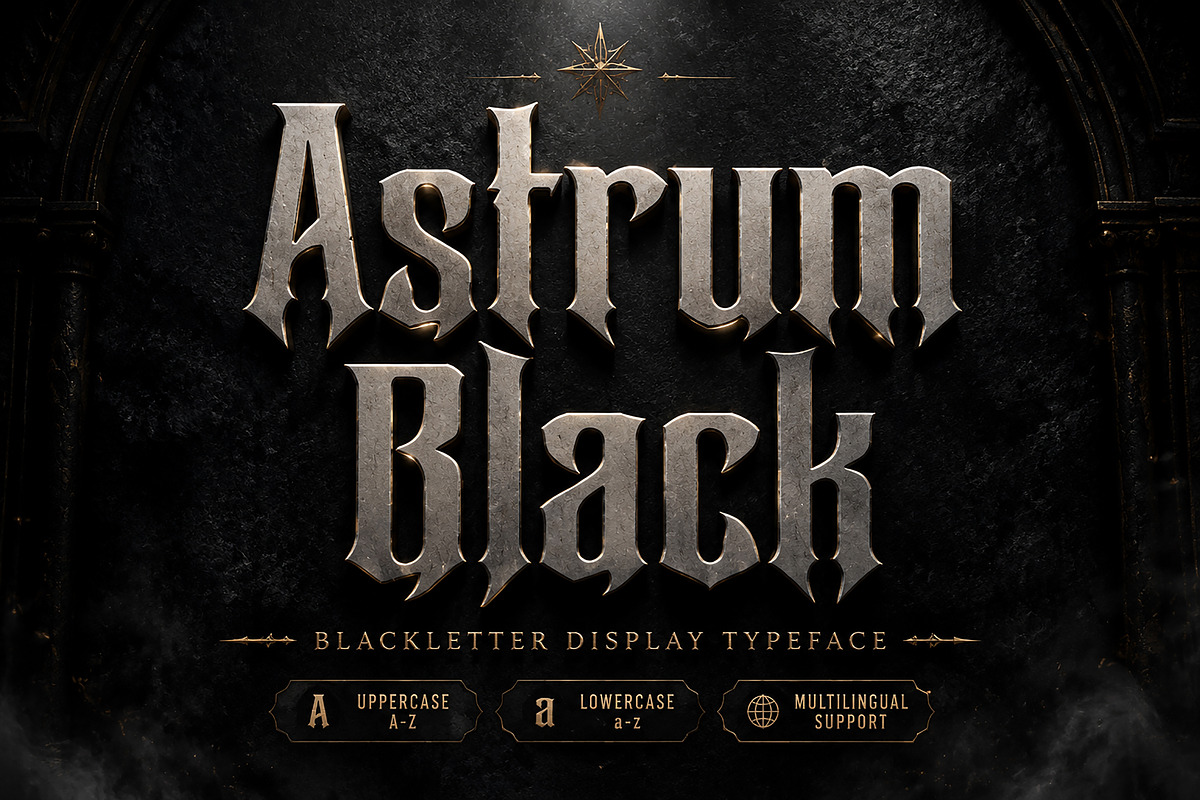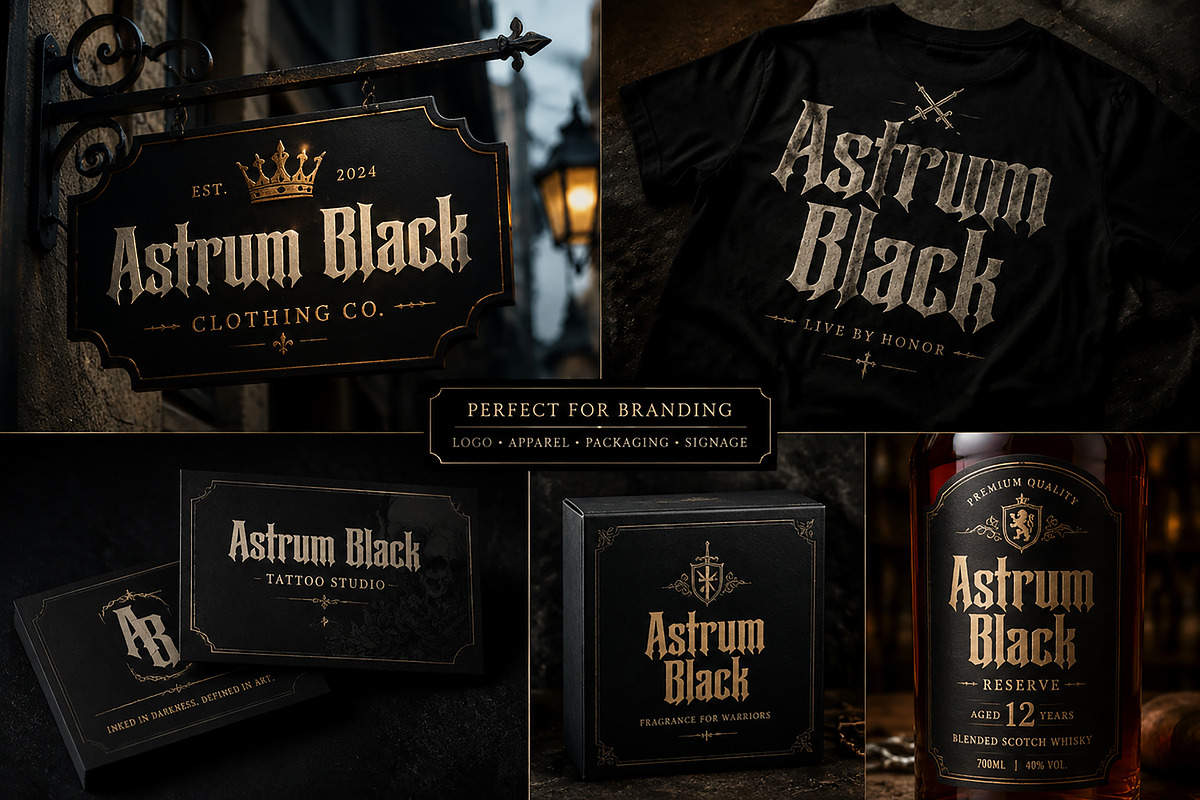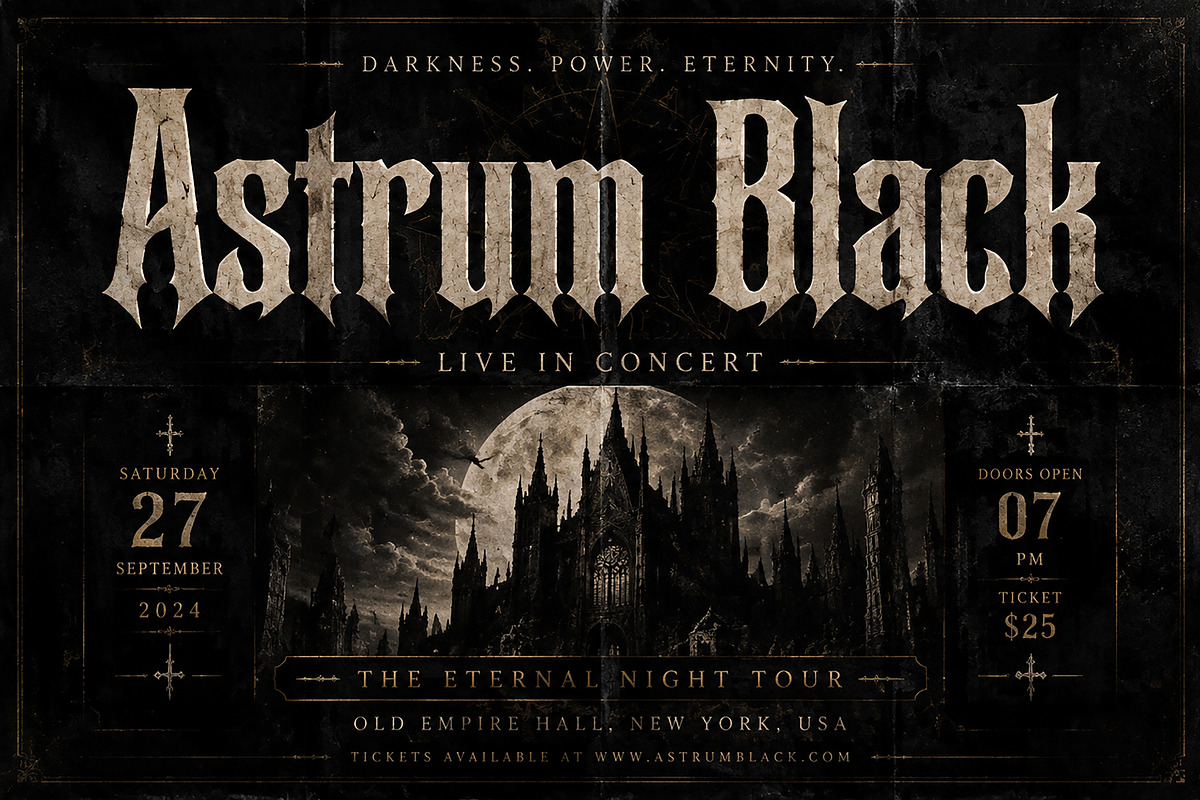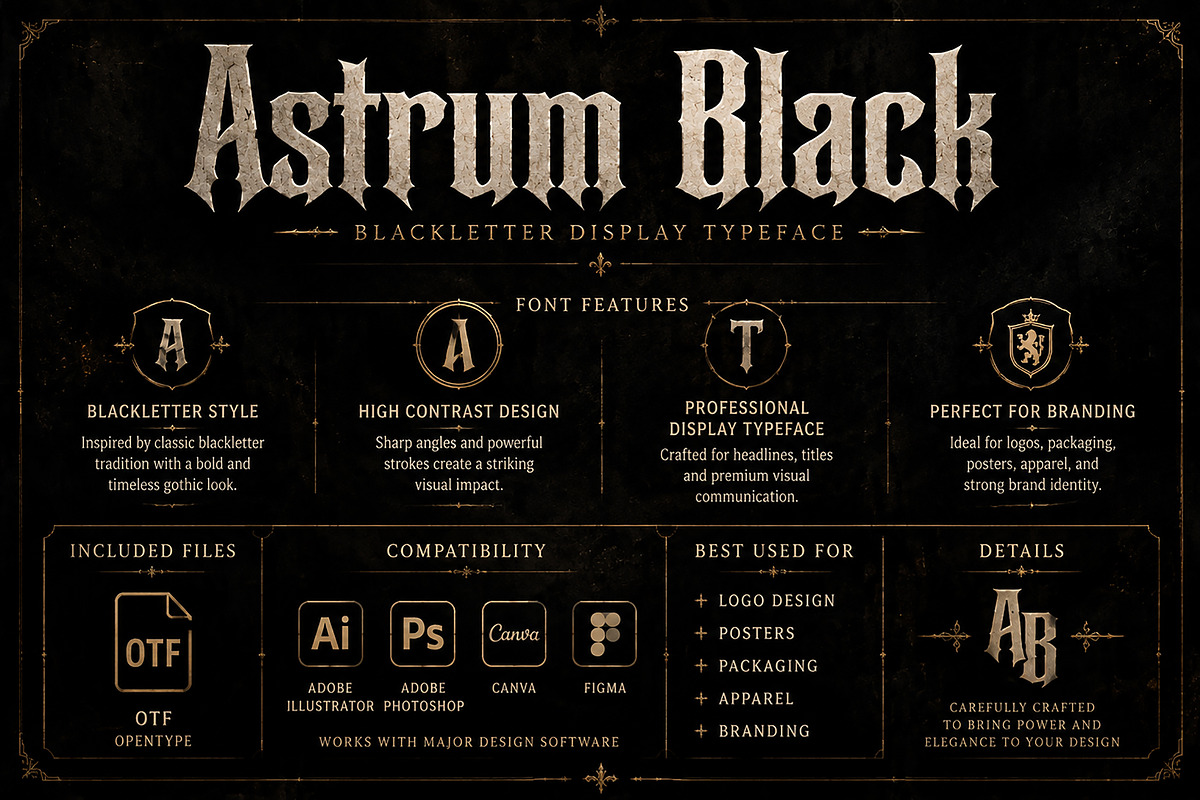
Astrum Black – Gothic Blackletter
Astrum Black – Gothic Blackletter Display Typeface
Astrum Black is a powerful blackletter display typeface inspired by medieval aesthetics, gothic architecture, and classic historical typography. Designed with sharp edges, bold strokes, and a strong visual presence, this font brings a premium and dramatic feel to any creative project.
Perfect for luxury branding, logo design, apparel graphics, posters, tattoo designs, music artwork, packaging, and vintage-inspired designs. Astrum Black is crafted for designers who want a bold statement font with a timeless gothic character.
Whether you are creating a powerful brand identity, an epic event poster, a clothing label, or a dark-themed visual project, Astrum Black adds a distinctive and memorable style.
✓ Gothic Blackletter Display Style
✓ Strong Medieval Inspired Letterforms
✓ High Contrast Bold Design
✓ Professional Display Typeface
✓ Perfect for Luxury Branding
✓ Suitable for Print & Digital Projects
• Logo Design
• Branding Identity
• Clothing & Apparel Design
• Tattoo Studio Branding
• Music & Band Artwork
• Posters & Flyers
• Packaging Design
• Book Covers
• Labels & Badges
• Vintage & Historical Designs